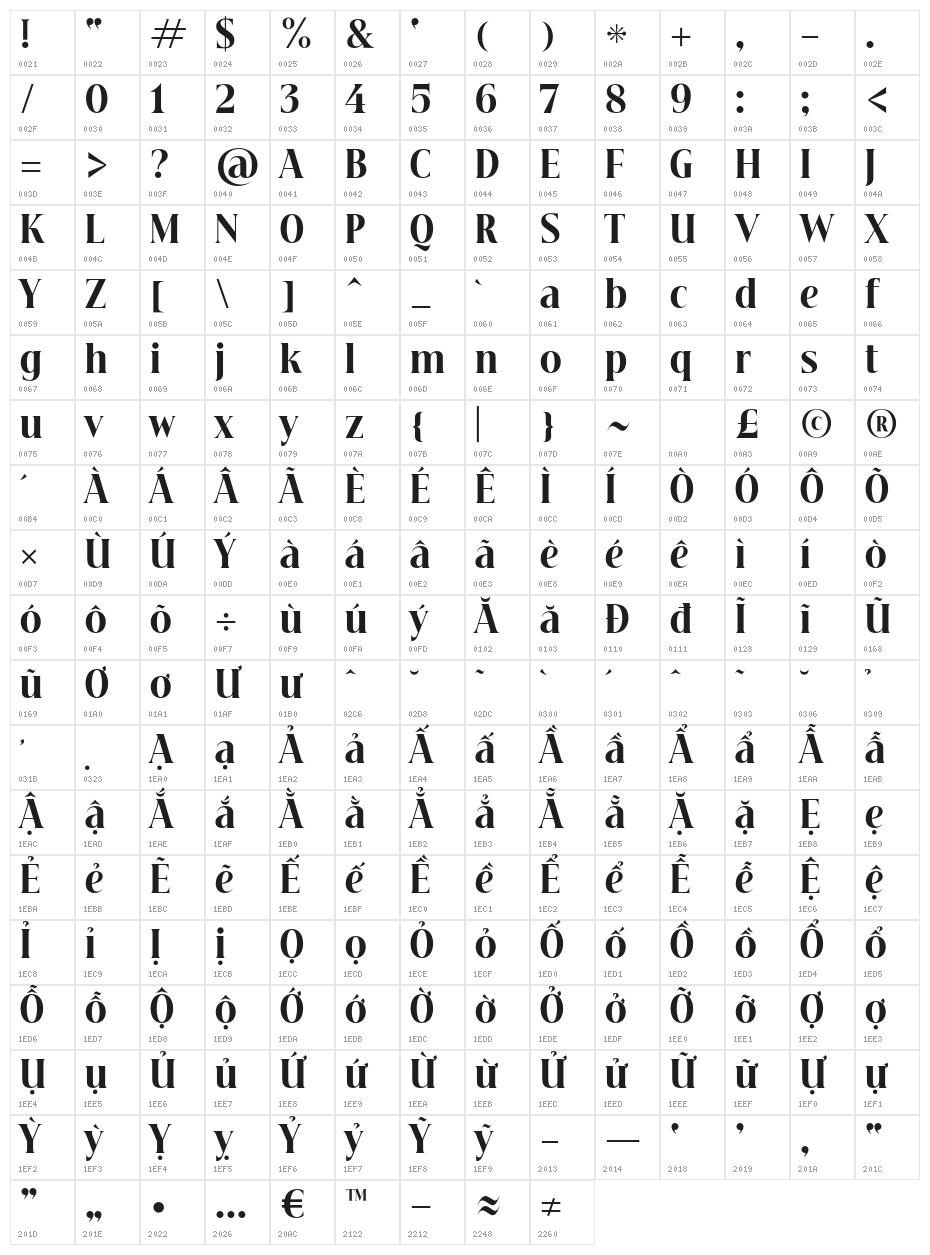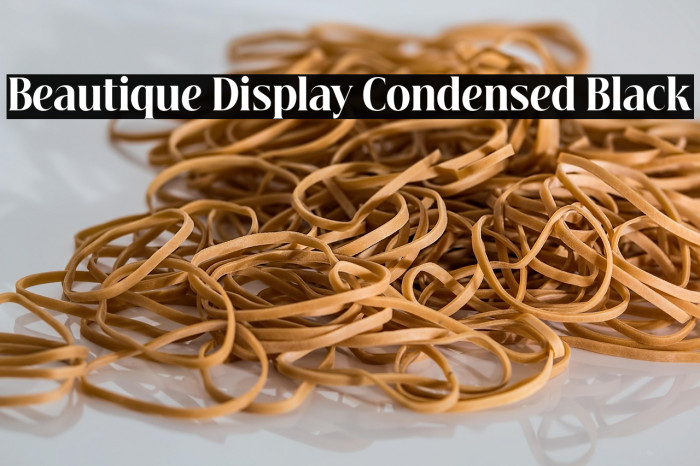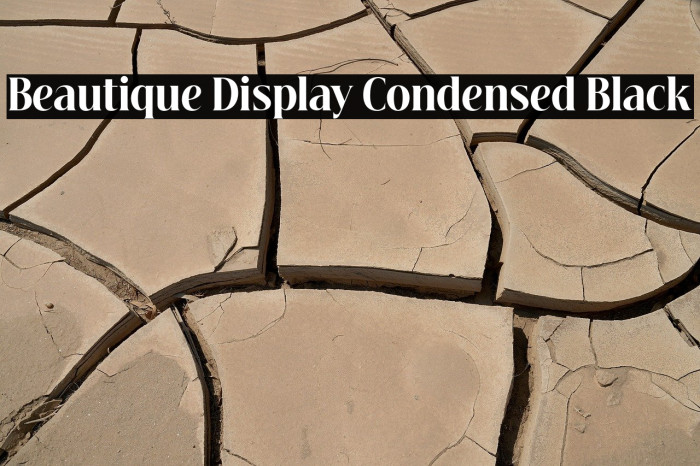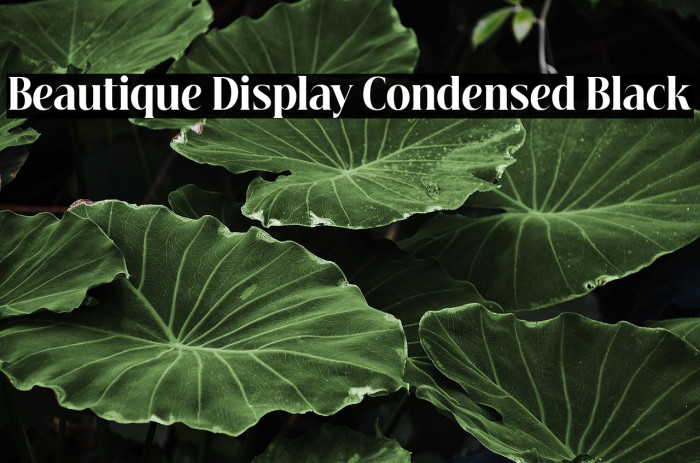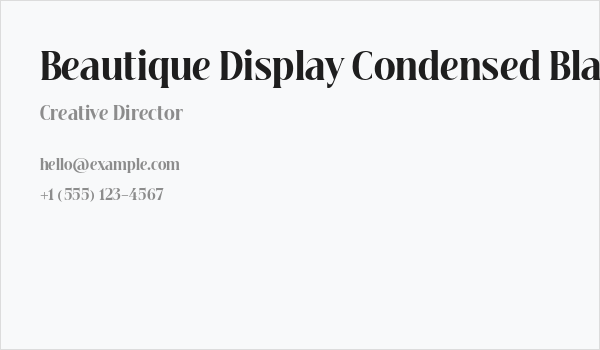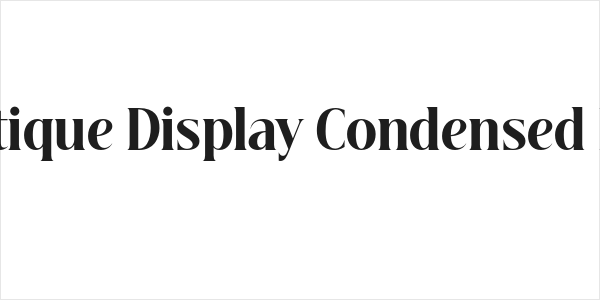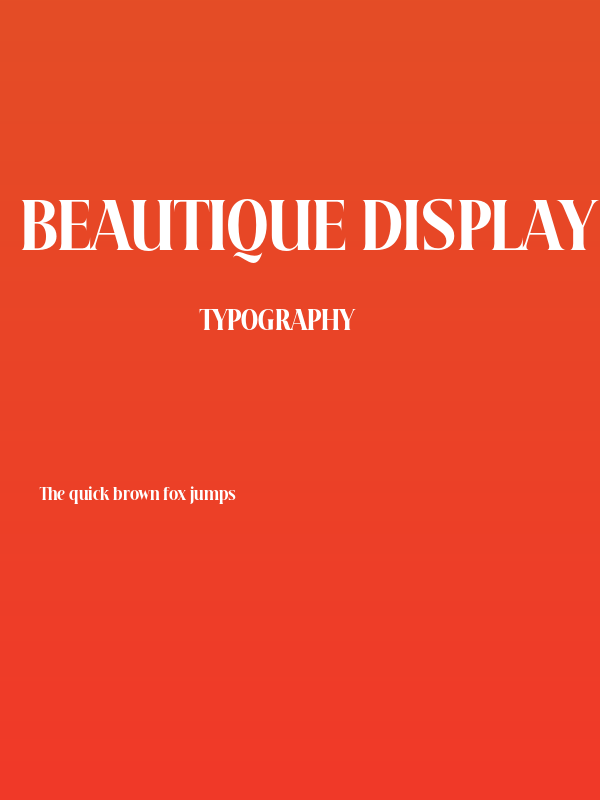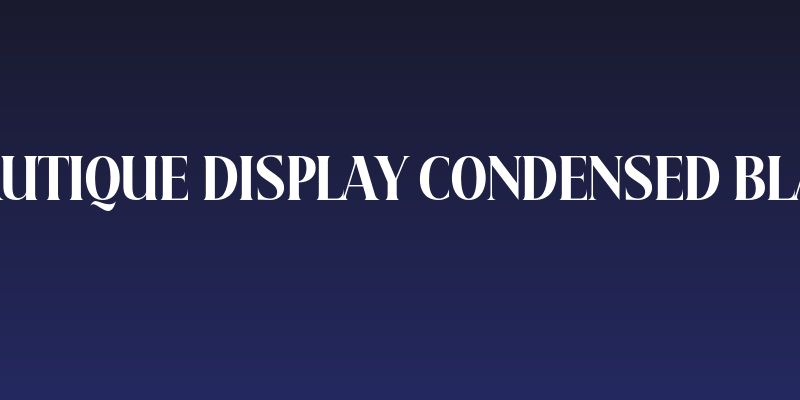
Beautique Display Condensed Black Font
Beautique Display Condensed Black Description
This font exhibits a striking and bold design, characterized by its condensed letterforms and high contrast between thick and thin strokes. The uppercase letters are particularly prominent, with sharp serifs that add a touch of elegance and sophistication. The lowercase letters maintain a consistent style, ensuring readability while retaining the decorative flair. The numerals are equally bold, making them stand out in any design. Special characters are crafted with the same attention to detail, providing a cohesive look across all glyphs.
| Proposed Projects | Ideal for luxury branding, magazine headlines, fashion editorials, and high-end product packaging. |